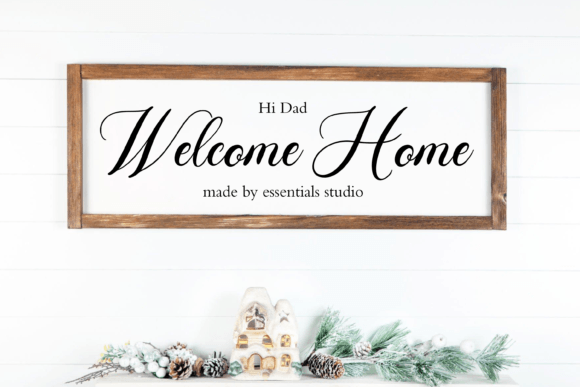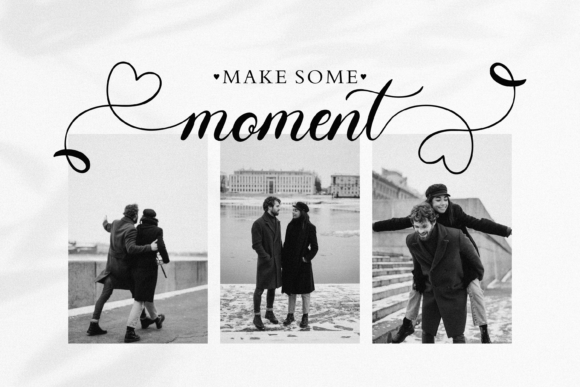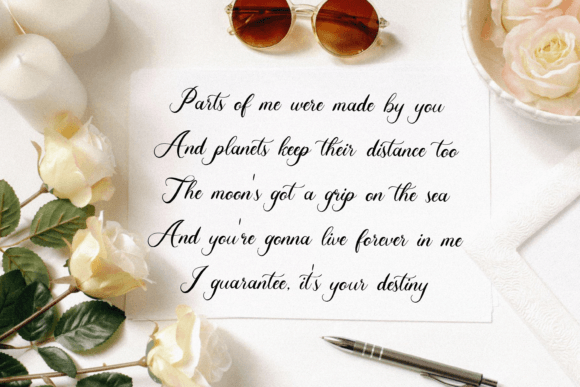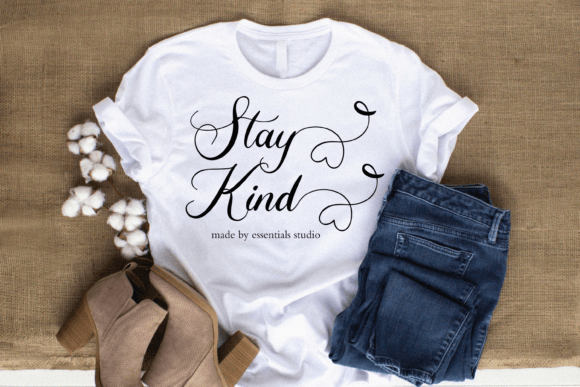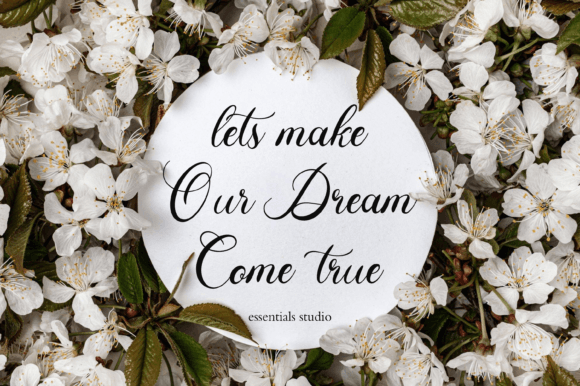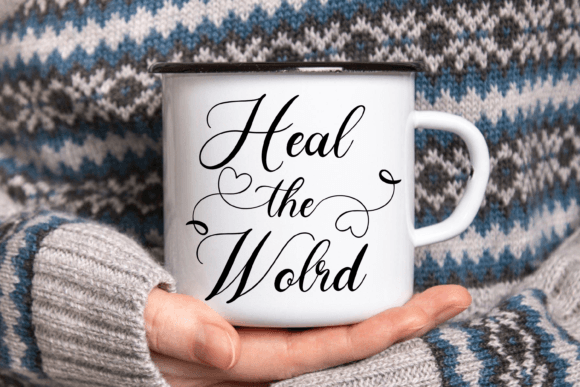
Introduction to Loveline Glamour Font
Have you ever been working on a creative project, pouring your heart and soul into it, only to be held back by the right font? I’m sure many designers can relate to that feeling. One moment, your design is lacking that extra oomph; the next, you stumble upon a font that elevates it to a whole new level. That’s exactly what happened to me when I discovered the Loveline Glamour Font.
This exquisite handwritten font is a true game-changer for designers looking to add a touch of high quality and sophistication to their projects. With its classy calligraphic influences and contemporary feel, Loveline Glamour Font is the perfect design resource for anyone seeking to create truly unique and eye-catching designs.
Key Features of Loveline Glamour Font
- High-quality design resource suitable for creative projects and personal use.
- Unique, elegant, and sophisticated font style with a touch of glamour.
- Transparent background, allowing for seamless integration with images and backgrounds.
- Comes in a single font style with multiple weights and sizes, making it versatile for various design applications.
- Perfect for designers and artists looking for a high-quality design resource to elevate their creative project.
Honest Review: Loveline Glamour Font
I recently stumbled upon the Loveline Glamour Font, and I must say it’s been a great addition to my design resource library. As a designer, I’m always on the lookout for high-quality fonts that can elevate my creative projects.
Here are some of the things that work well with this font: ✨
- Beautiful, high-quality design
- Perfect for creative projects that require a touch of elegance
However, I do have a few limitations to mention: ⚠️
- The font may not be suitable for projects that require a lot of bold or dramatic typography
- The transparent background may not be ideal for all design applications
Overall, I’m quite impressed with the Loveline Glamour Font. It’s a great addition to any designer’s library, and I’ve already used it in a few of my recent projects. I would definitely recommend it to anyone looking for a high-quality, elegant script font.
How to Use Loveline Glamour Font
The Loveline Glamour Font is a high-quality design resource that can elevate your creative project. With its elegant and sophisticated look, it’s perfect for various applications, from wedding invitations to fashion branding.
Tips for Getting the Most Out of Loveline Glamour Font
To get the most out of the Loveline Glamour Font, use it in conjunction with a transparent background to create a seamless design. Experiment with different font sizes, colors, and styles to achieve the desired look.
The Loveline Glamour Font is perfect for:
- Fashion branding and advertising
- Beauty and wellness branding
- High-end packaging and labeling